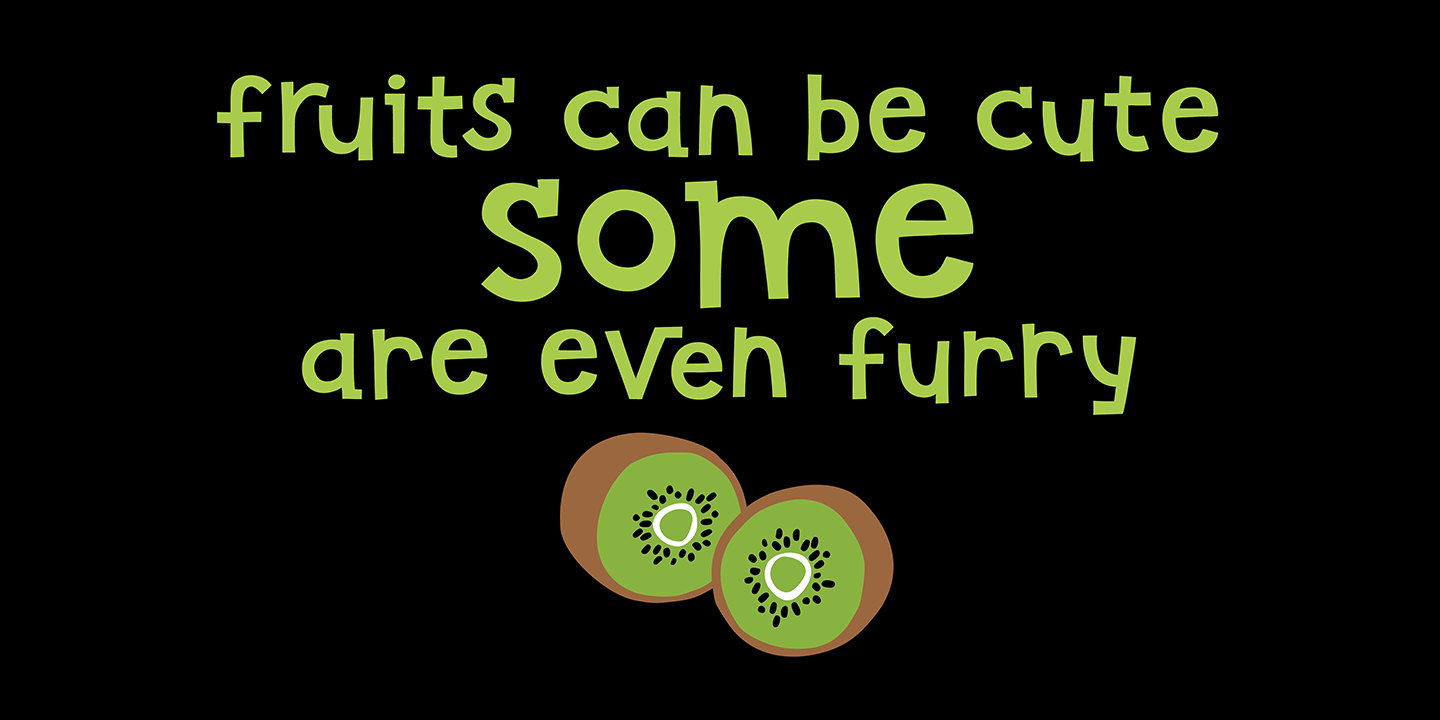
Kiwi Font is perfect for tropical fruit packaging, fresh juice bar branding, organic produce labels, health food store signage, vitamin supplement advertisements, smoothie shop menus, natural wellness campaigns, and vibrant healthy lifestyle marketing materials. This refreshing typeface excels in applications where natural freshness and healthy vitality are essential.
What makes Kiwi Font so exciting is its refreshing ability to convey the zesty energy and natural vitality of fresh fruit through vibrant, organic-inspired letterforms that embody the wholesome goodness of healthy living and the invigorating spirit of natural nutrition. The font features lively character shapes with fruit-inspired details and fresh styling that evoke images of tropical orchards, vitamin-rich smoothies, and the energizing power of natural foods. Its health-focused design philosophy combines organic authenticity with contemporary vitality, making it perfect for wellness brands seeking to convey natural energy, healthy lifestyle, and connection to health-conscious communities and organic food culture.
Kiwi Font belongs to the organic display font family, specifically designed for health food and natural wellness branding applications. This typeface family emphasizes fresh visual impact through fruit-inspired styling and healthy character elements, ensuring authentic natural presentation across various wellness and organic food-focused design projects.
Energize your healthy designs with Kiwi Font Free Download, a typeface that embodies the vibrant freshness of natural nutrition and healthy living vitality. This invigorating font delivers exceptional energy for wellness applications, featuring comprehensive character sets with fruit symbols and healthy punctuation marks that capture the essence of natural vitality and organic freshness. Its vibrantly crafted letterforms maintain excellent readability while preserving the authentic fresh aesthetic across various sizes, from small supplement labels to large health food store entrance displays. The font's distinctive healthy personality makes it invaluable for designers creating wellness brands, organic food materials, and health content where conveying freshness, vitality, and natural nutrition is crucial for engaging health-conscious audiences and wellness communities seeking authentic organic experiences and nutritious, energy-boosting lifestyle choices.